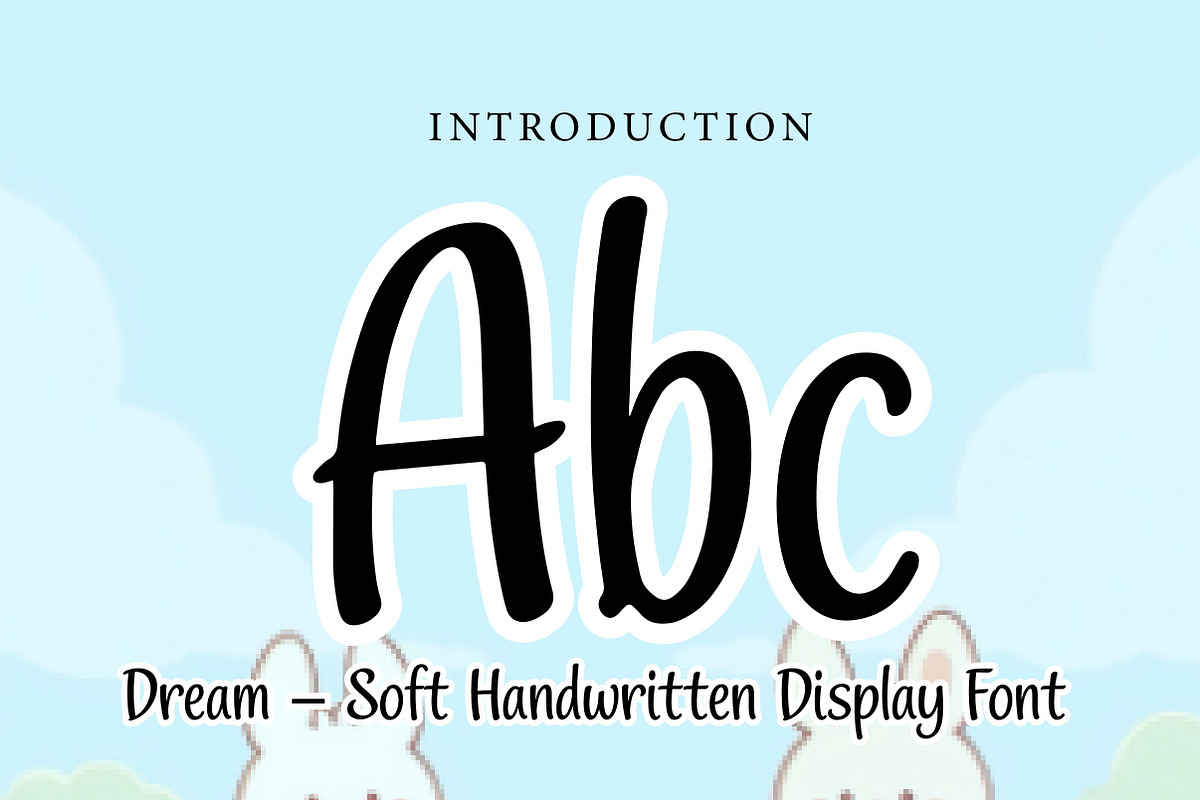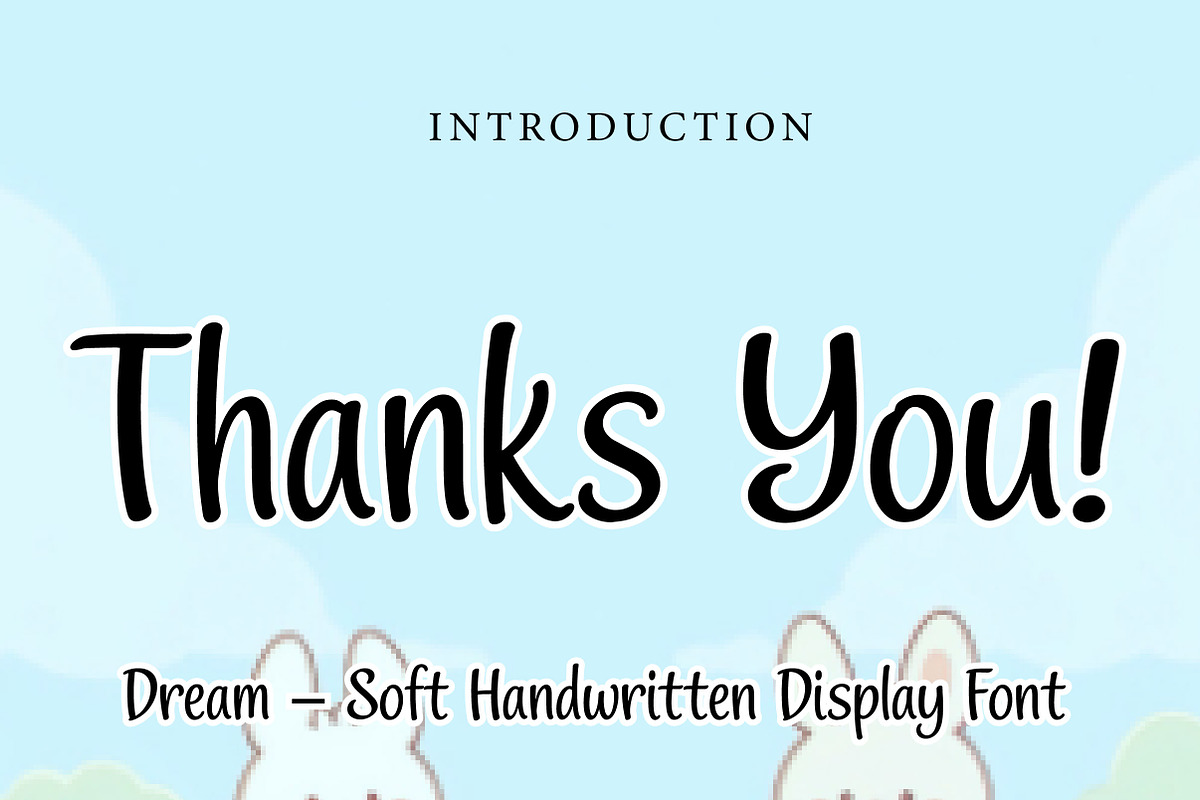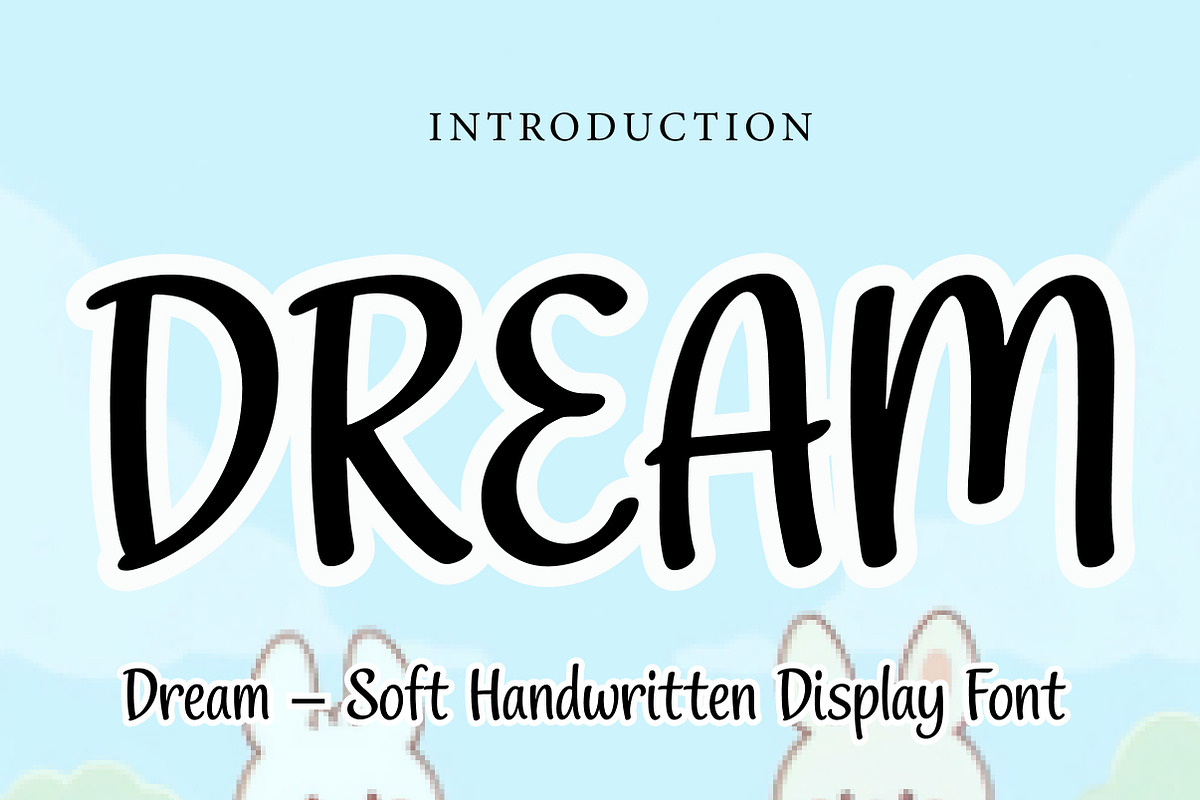
Dream
Dream – Soft Handwritten Display Font
Dream is a soft, smooth, and friendly handwritten display font, perfect for branding, quotes, packaging, invitations, and modern creative projects.
Dream is a gentle and stylish handwritten display font designed to bring warmth, simplicity, and elegance into your designs. With its smooth curves, rounded strokes, and natural flow, this font creates a calm and friendly look that feels both modern and approachable.
Its clean handwritten style makes Dream highly versatile for a wide range of creative uses. Whether you are designing logos, social media graphics, product packaging, greeting cards, quotes, posters, or website headers, this font helps your typography feel more personal, soft, and memorable.
The balanced letterforms ensure readability while maintaining a charming handcrafted touch. Suitable for both print and digital use, Dream is a perfect choice for designers who want a font that feels light, modern, and effortlessly beautiful.
Perfect For Branding and logos Social media graphics Product packaging Quotes and typography Greeting cards Invitations Posters and flyers Website headers Lifestyle branding Minimal creative projects Font Features Uppercase letters Lowercase letters Numbers & punctuation Smooth handwritten style Soft and rounded shapes Friendly and modern look Easy readability